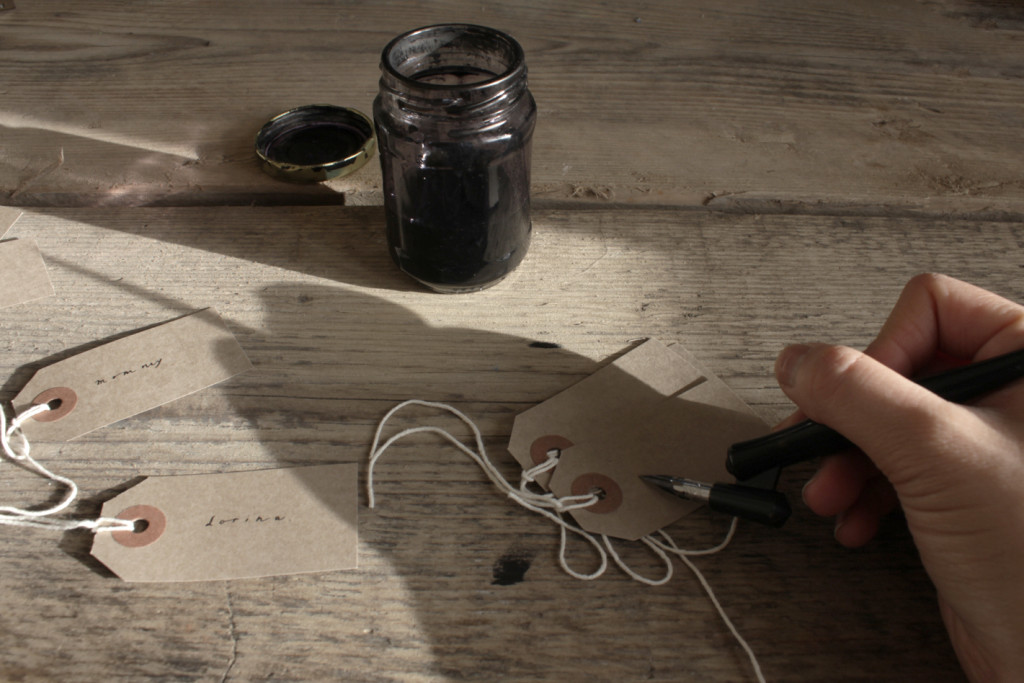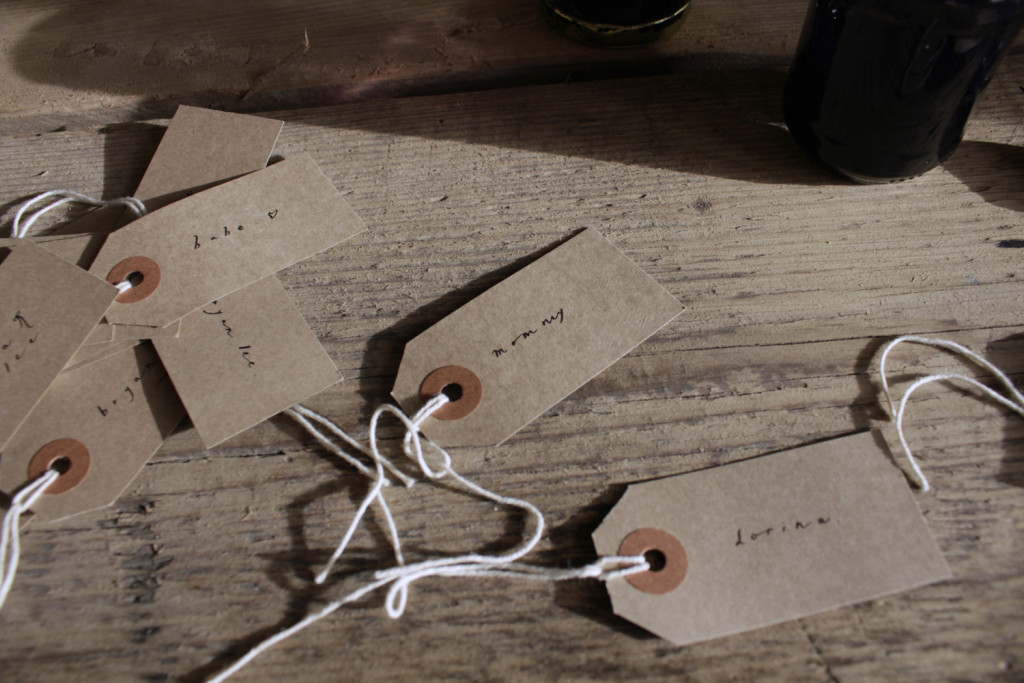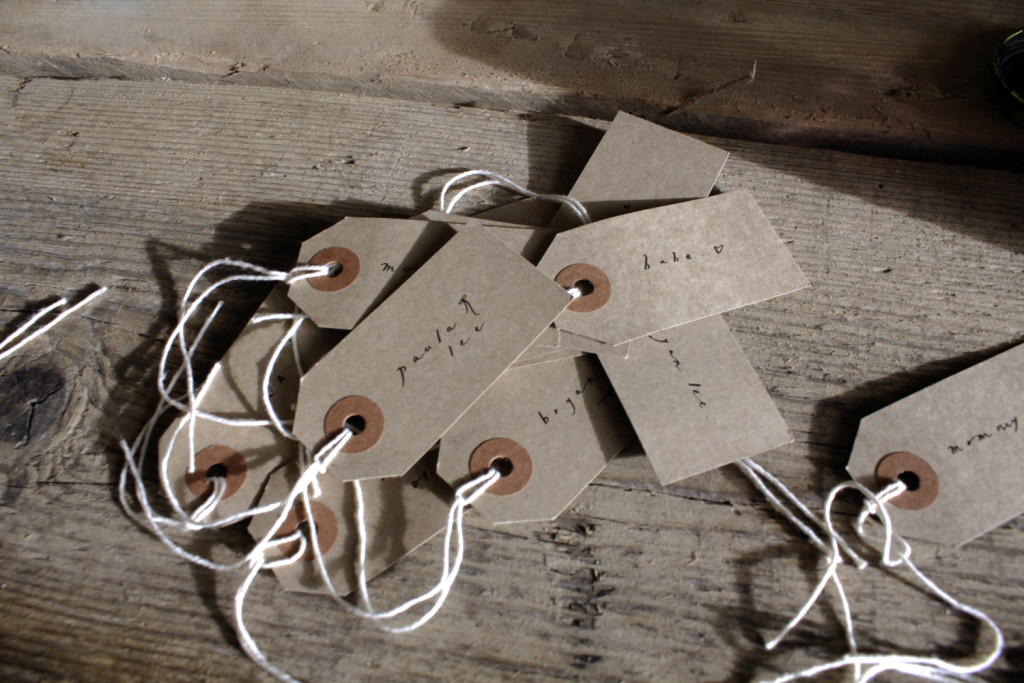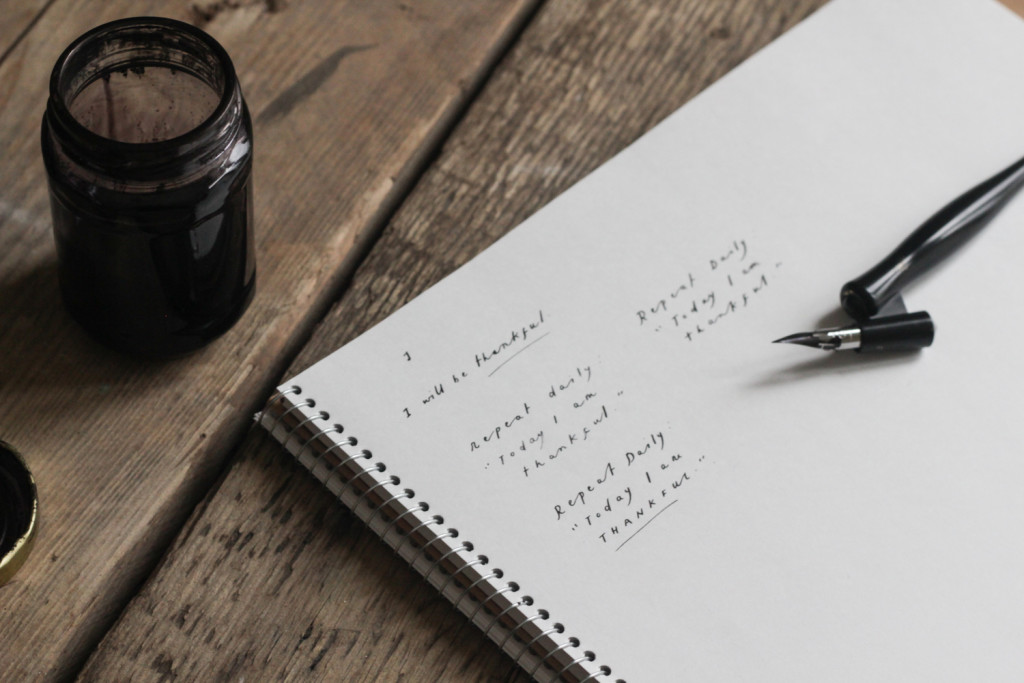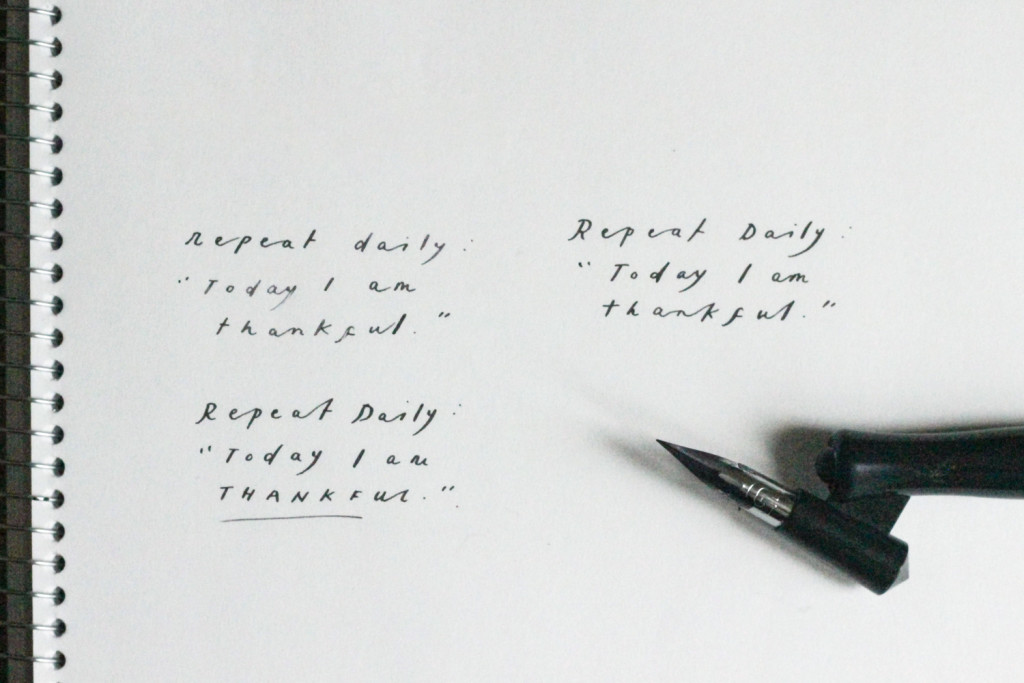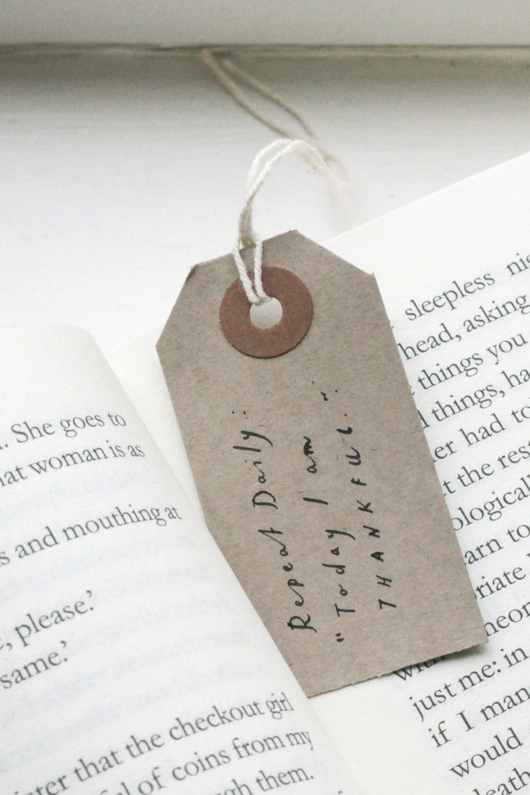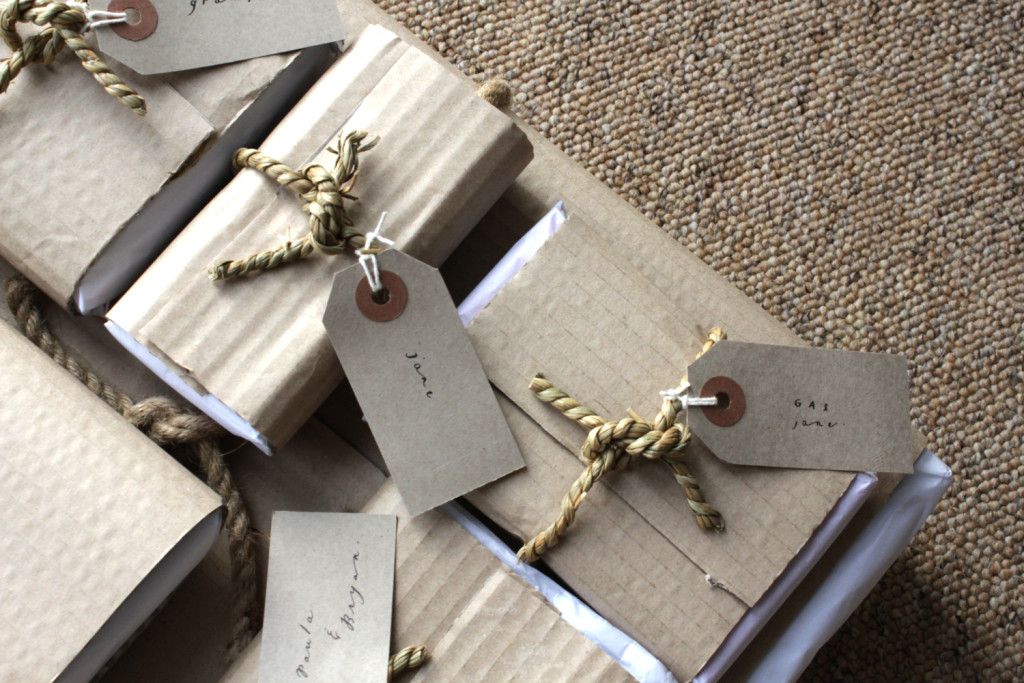
Seasonal Gift Tags In Four Steps With Belinda Love Lee
Brush artist and calligrapher Belinda Love Lee has kindly created an exclusive seasonal tutorial for us. Belinda shows how to create some personal gift tags that can provide family members and friends with extra sentiment this holiday season. Belinda's tutorial is the second of three holiday articles that will feature on Lettering Tutorial this December. If you missed the first feature, Emma Holmes talks you through her process for creating hand lettered Christmas cards.
Belinda Love Lee's Exclusive Tutorial
"With so many gifts under the tree, gift tags are a must. Especially for us letterers out here, this is our time to shine and show off a little swirl and illustration. A normal gift tag just has the 'to and from' names on it, but instead of the tag adding to the already growing pile of paper waste, lets put a little more meaning behind it! In this tutorial I'll be showing you how to scale small by adding a little quote on the back of the gift tag.
Perhaps we'll be able to convince people to keep the tags around for a little while longer, as a book mark or even frame art!
Materials Needed: - Pre-made tags - Calligraphy pen - Ink - And Google to help you find the appropriate quotes
Step 1 - So on the front side we'll be writing their names in as per usual.
Step 2 - Then on the flip side, this is where we'll be writing out our quote. Think about a quote that would really speak to the person on the receiving side. Perhaps do a little research to get your thoughts flowing. But before jumping the gun and writing directly on the tag, I would suggest practicing a couple times on a spare piece of paper, so you can get your layout down, and know what format looks best together.
Step 3 - Once you've nailed down your desired layout. It's now time to get penning.
Step 4 - Viola! Now you have a set of meaningful gift tags that will hopefully stick around for more than just this season!